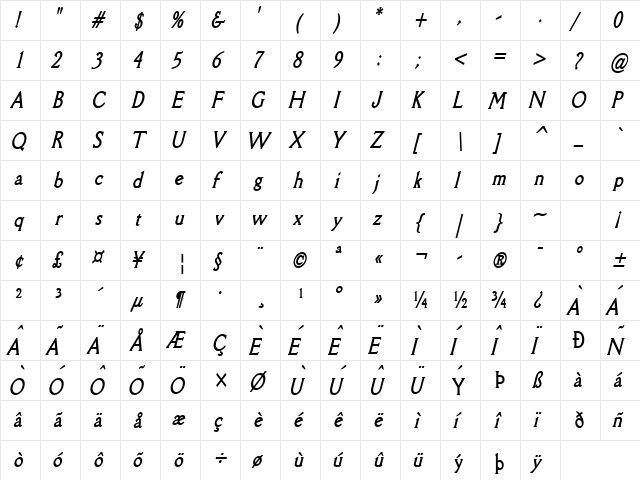
Rory Thin BoldItalic
Design Context for Rory Thin Typeface
Rory Thin takes a measured approach to typography — its balanced proportions and neutral character make it a reliable workhorse for both digital and print work. Its italic angle brings a sense of urgency and motion to the letterforms. The heavy weight commands attention and anchors typographic hierarchies.